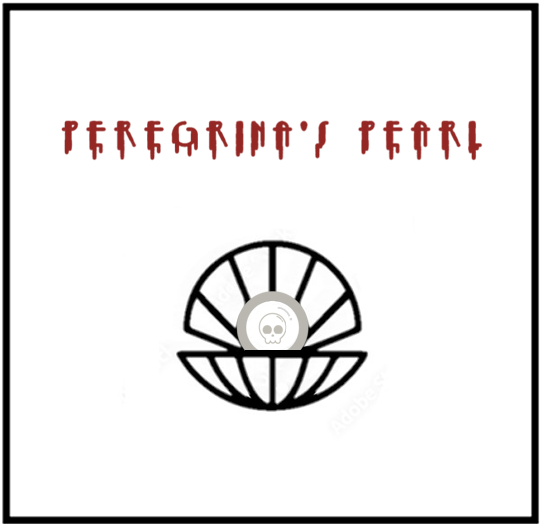
• a spooky little art deco font
ink's just a bit too heavy for it's own glyphs~
Surprising approach to the concept of the Comp here. I really didn't expect it ?.